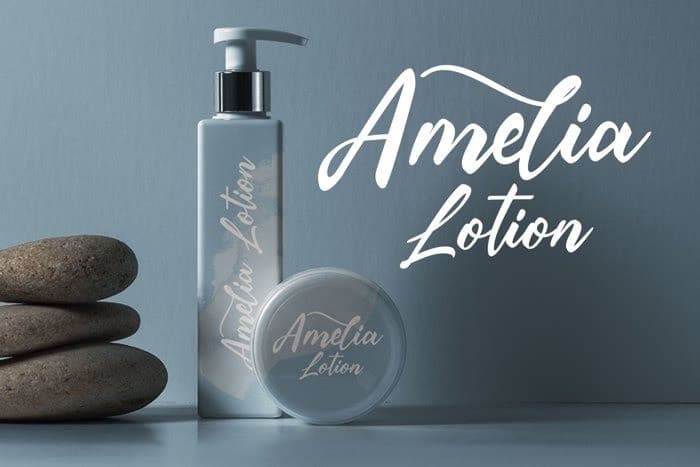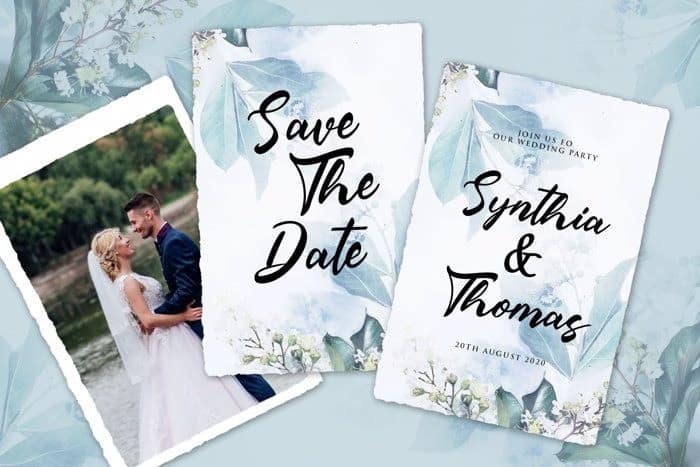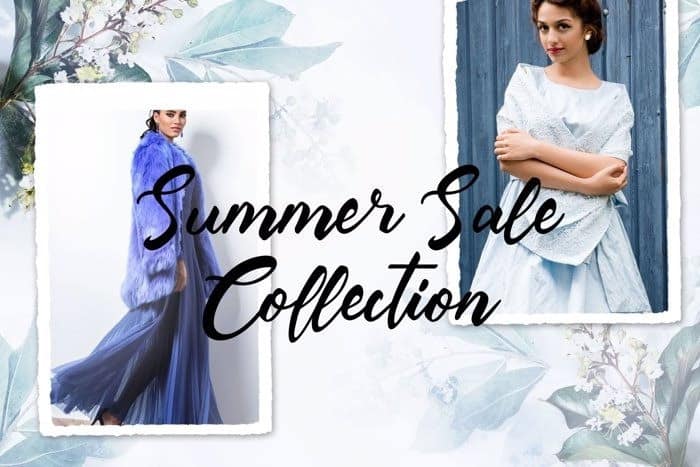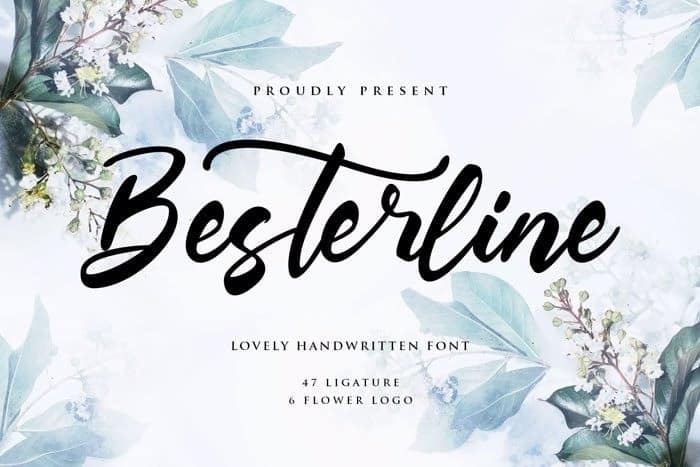
Besterline Script Font
Besterline Script Font is a script font created with authentic handwritten style. This font is designed and shared by Rantautype. It features a natural handwritting look and will add a natural feel to your upcoming projects. Get inspired by its unique feel and use it to create designs, logo, product packaging or posters and many more!